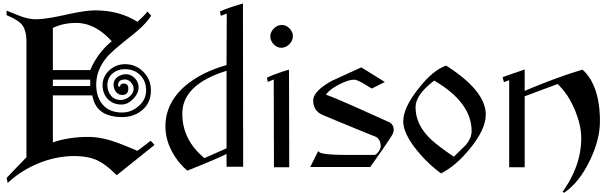
Edison
Edison, is it Victorian or is it Art Nouveau? While this typeface may be found in Petzendorfer’s Treasury of Art Nouveau Alphabets, I believe the decorative spirals are more Victorian than “New Art.” To me, they looked tacked on, rather than organic...